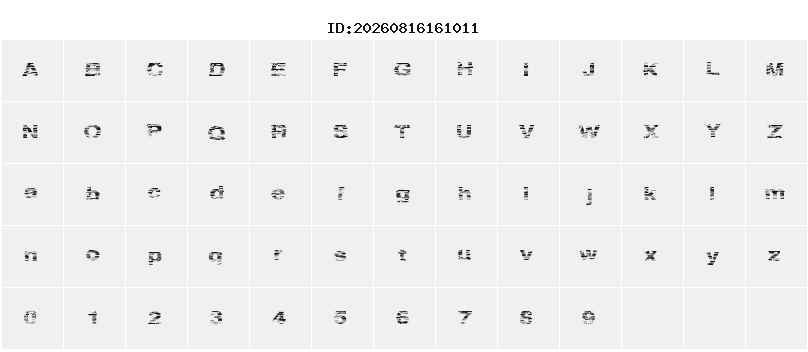
SpringParty Preview
• Font Name: SpringParty
• Designer: Max Infeld
• Manufacturer: Xerographer Fonts
• Description: This font at Xerographer Studios chico,CA
About SpringParty.ttf
SpringParty.ttf is a modern, elegant sans-serif font designed for ultimate readability and visual harmony. Perfect for branding, headlines, web design, and print materials.